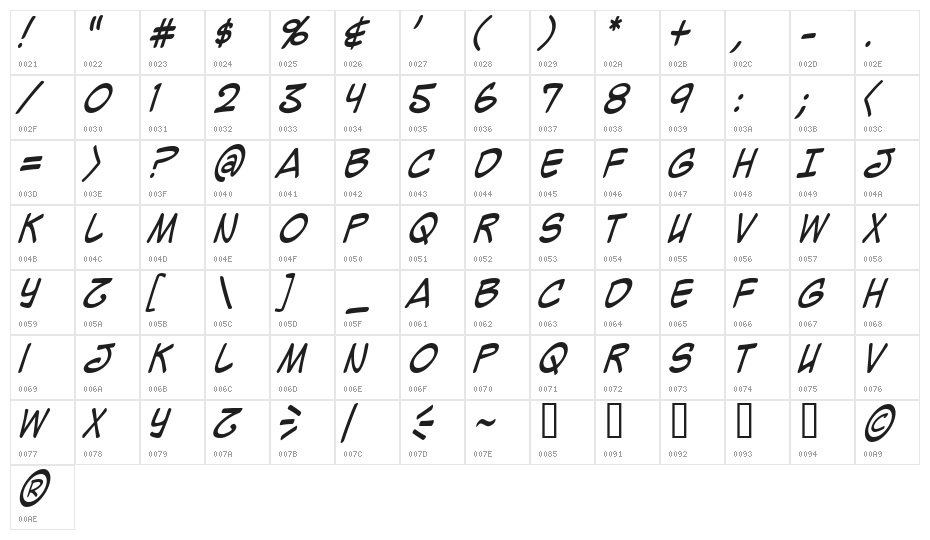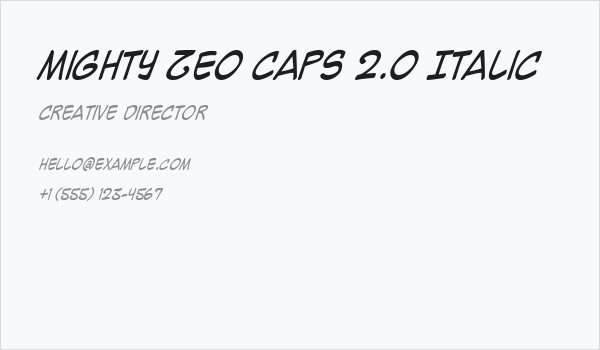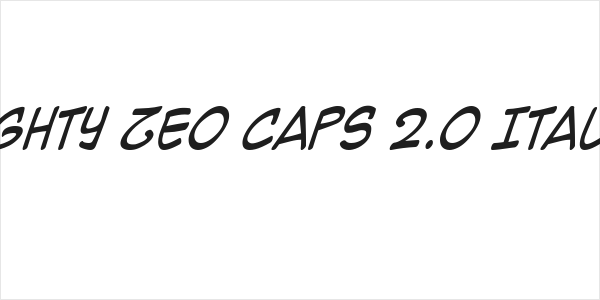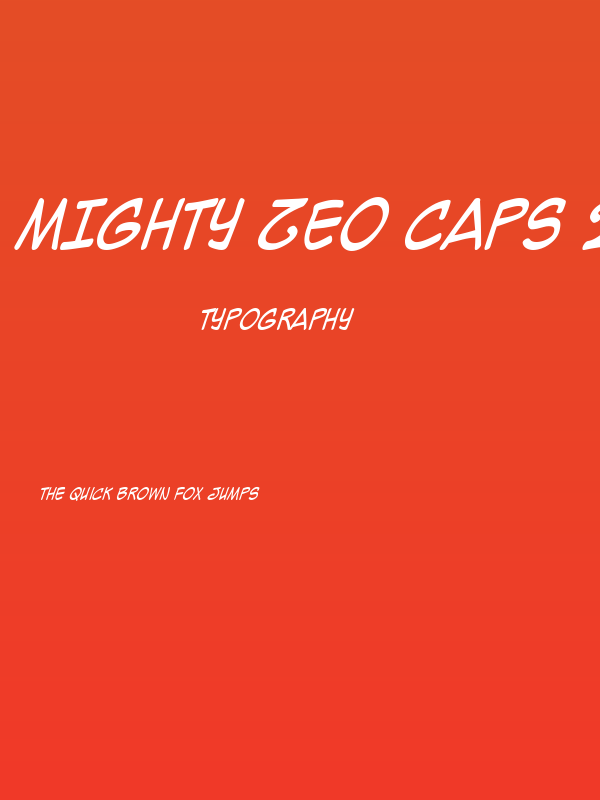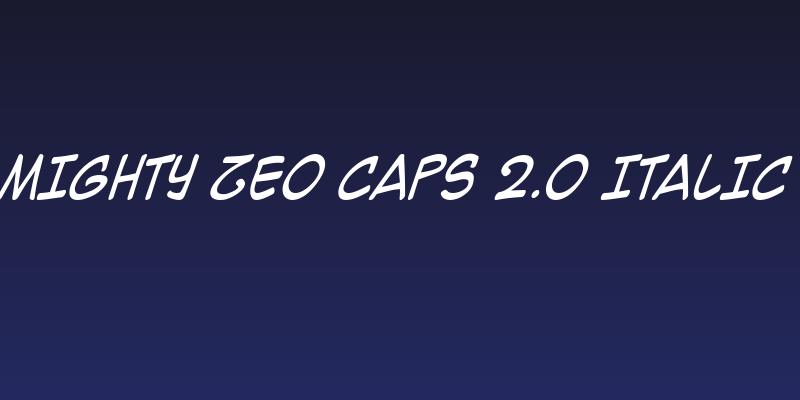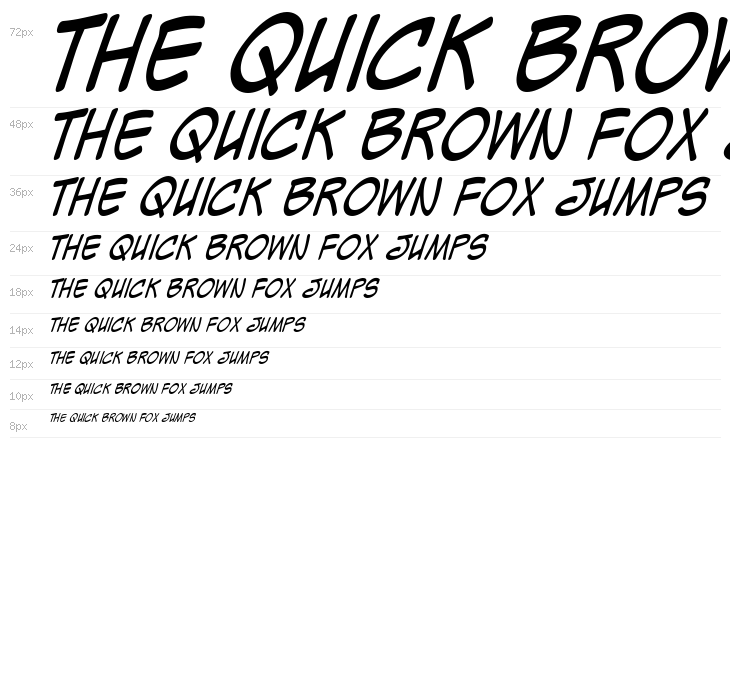
Mighty Zeo Caps 2.0 Italic Font
Mighty Zeo Caps 2.0 Italic Description
This font features a dynamic and energetic style with a strong italic slant, giving it a sense of motion and fluidity. The characters are bold and slightly condensed, with smooth curves and a consistent stroke width that maintains readability. The uppercase and lowercase letters are well-balanced, and the numerals are clear and distinct. Special characters are included, adding versatility for various design needs. The overall appearance is modern and stylish, making it suitable for eye-catching designs.
Proposed ProjectsIdeal for sports branding, dynamic posters, energetic advertisements, and modern logo designs.